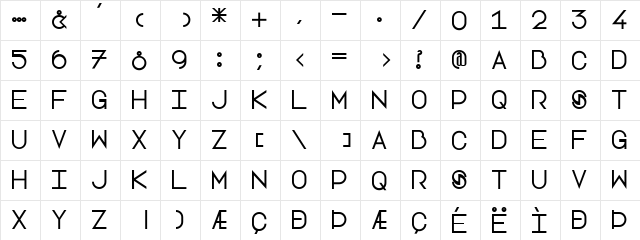
Lotte Paperfang Regular Font Preview
Lotte Paperfang Regular
Lotte Paperfang Regular Font Details
Design Context for Lotte Paperfang Typeface
Lotte Paperfang offers clean, dependable letterforms without strong stylistic allegiance, making it a practical choice for designers who need flexibility.